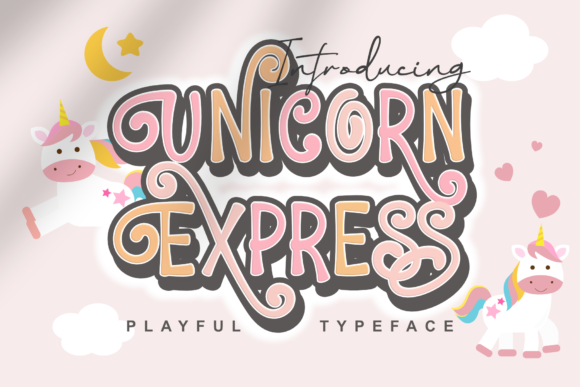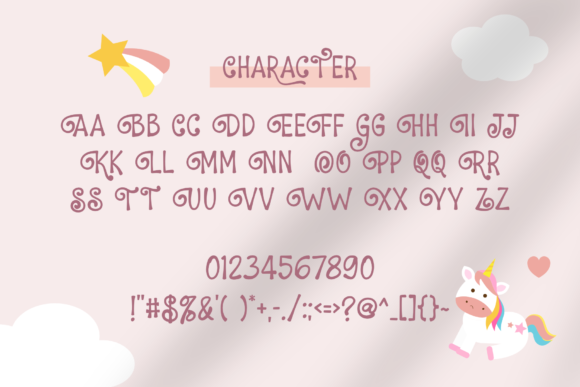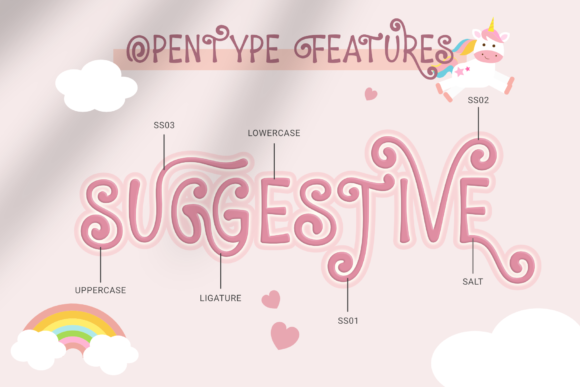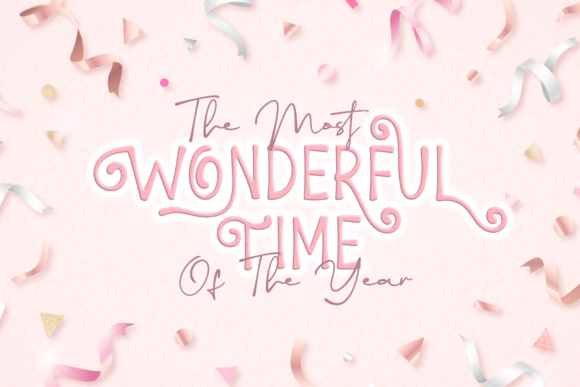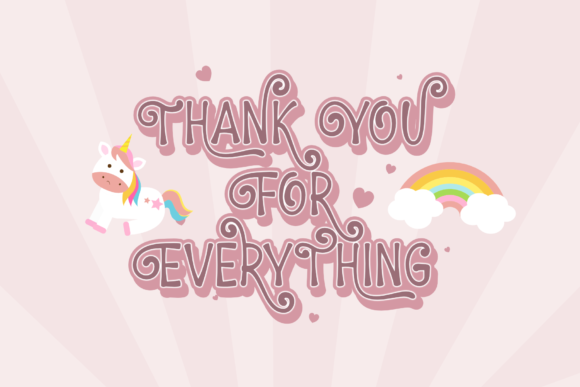
Freebie Wednesday: Free Unicorn Express Font
Unicorn Express is playful and chic display font. It would be suitable for birthday cards, party banners, social media content, celebration quotes and many more. This font is PUA encoded which means you can access all of the glyphs and swashes with ease!